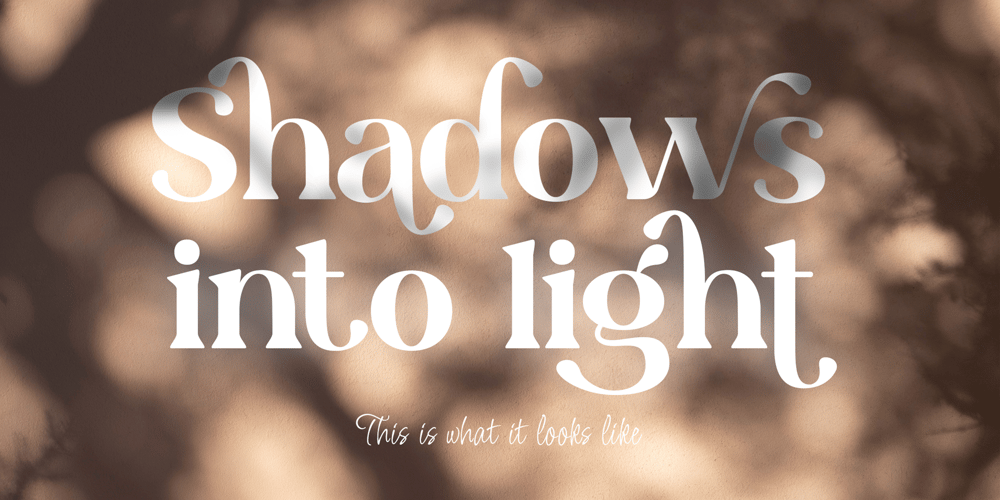
Bellvyne
Bellvyne font
Bellvyne Font Family was designed by Heri Imanudin and published by Krafted. Bellvyne contains 1 styles and family package options. Looking for an elegant but unique serif font that looks equally great on screen as well as on paper?Introducing Bellvyne – A Serif Font.Stylish with a touch of modern, Bellvyne is perfect for making your brand stand out. It’s a great choice for web pages, apps, ads, banners, promotions, printed cards, packaging, and pretty much anything else your project needs.What you’ll get: Multilingual & Ligature Support Full sets of Punctuation and Numerals Compatible with: Adobe Suite Microsoft Office Keynote Pages Software Requirements: The fonts that you’ll receive in the pack are widely supported by most software. In order to get the full functionality of the selection of standard ligatures (custom created letters) in the script font, any software that can read OpenType fonts will work. We hope you enjoy this font and that it makes your branding sparkle! Feel free to reach out to us if you’d like more information or if you have any concerns.